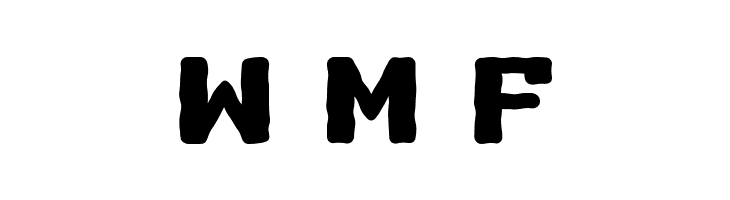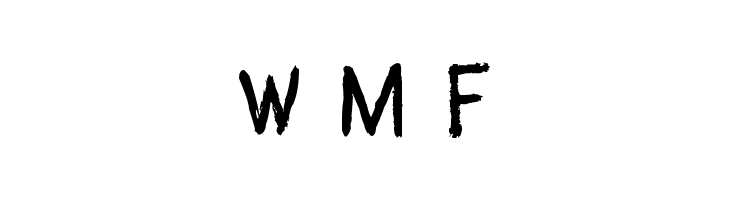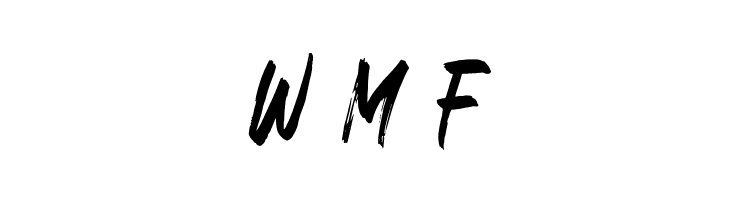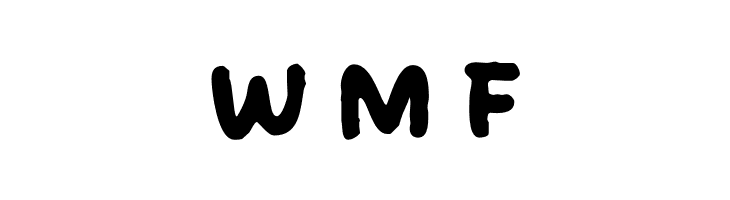
• FusterdBrush-Regular
A dynamic, brush-style font with fluid, hand-painted strokes.
• Bristle Brush Script Demo
A bold, brush-style script font with textured, hand-painted strokes.
• SlouchyBrush-Regular
A bold, dynamic brush-style font with an expressive, handcrafted look.
• Brush Regular
A playful, brush-style font with bold, rounded characters.
A dynamic brush script font with elegant, flowing strokes and artistic flair.
A bold, energetic brush-style font with dynamic strokes.
• Sport Gazenox Brush Italic
A bold, italic brush-style font with dynamic, hand-painted strokes.
• Sport Gazenox Brush
A bold, brush-style font with a rugged and textured appearance.
• Sportex WorkoutBrush
A bold, brush-style font with energetic, rounded strokes.
• Super Brush
A bold, brush-style font with a playful and dynamic appearance.
• Nylon Brush
A playful, brush-style handwritten font with bold, flowing strokes.
• Funky Yard DEMO Brush
A bold, expressive brush-style font with dynamic, hand-painted strokes.
• Correction Brush
A bold, brush-textured font with an artistic and dynamic appearance.
• Mister Brush
A bold, expressive brush-style font with dynamic, hand-painted strokes.
• Attacktion Demo Brush
A bold, energetic brush-style font with dynamic strokes and a handcrafted feel.
• SpookyBrush
A bold, brush-style font with an energetic and dynamic appearance.
• Zombie Brush Personal Use
A bold, brush-style font with dynamic and jagged strokes for an energetic look.
• Jackbrush
A bold, brush-style font with dynamic and expressive strokes.
• Slank Brush
A bold, playful brush-style font with a hand-drawn aesthetic.
• AveraSansTC-Brush
A bold, brush-style font with a hand-drawn, artistic appearance.
• Ace Nova Brush
Bold brush script with a hand-painted look.
• Night Brush